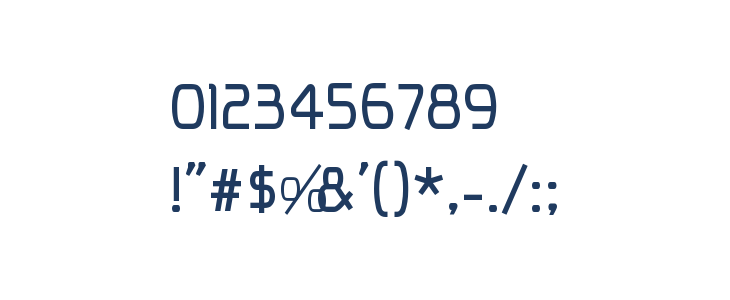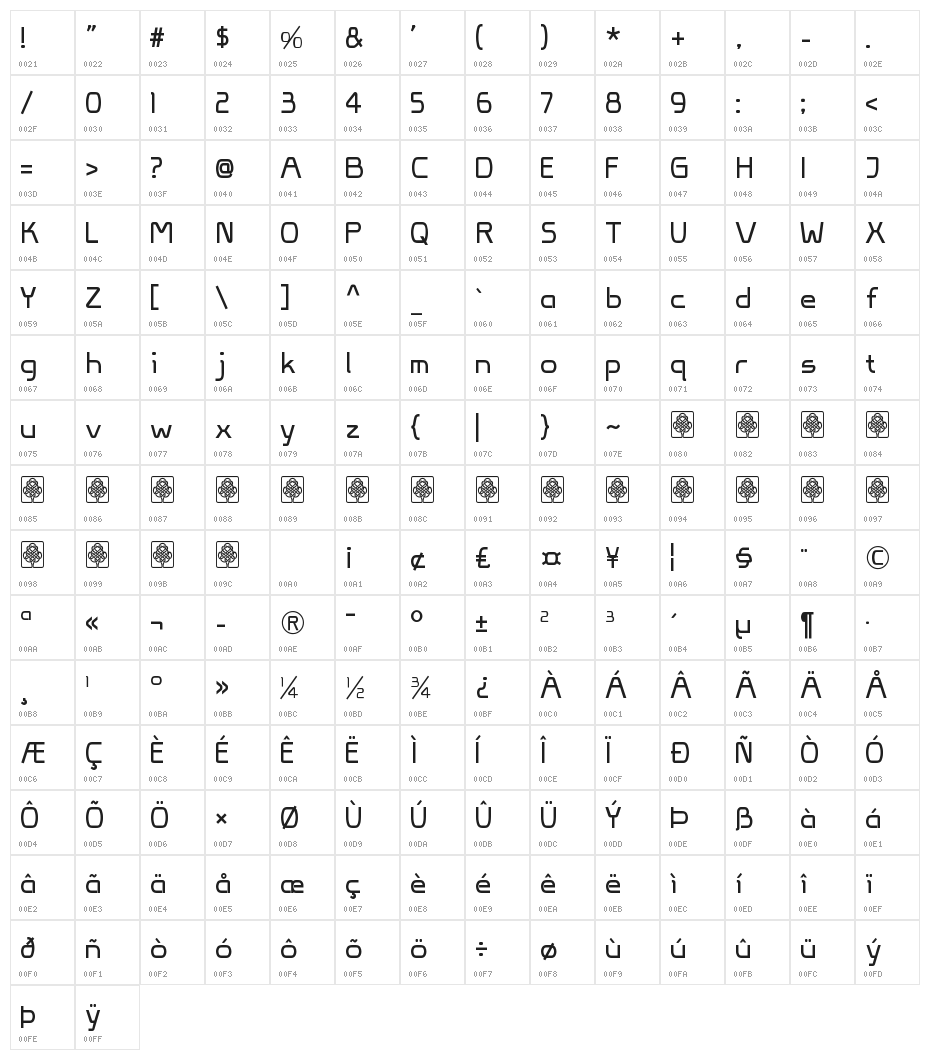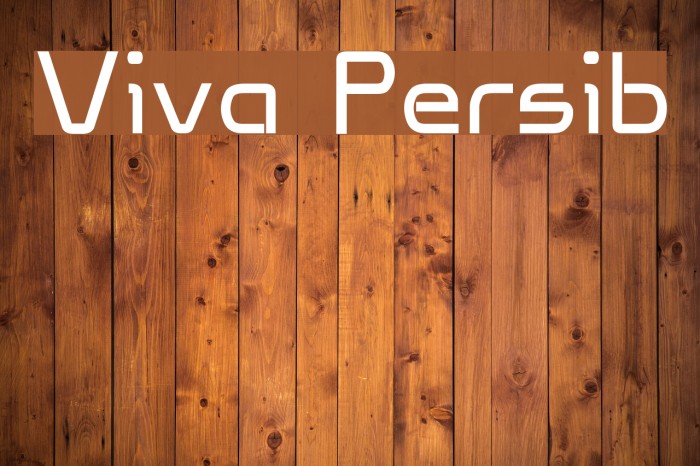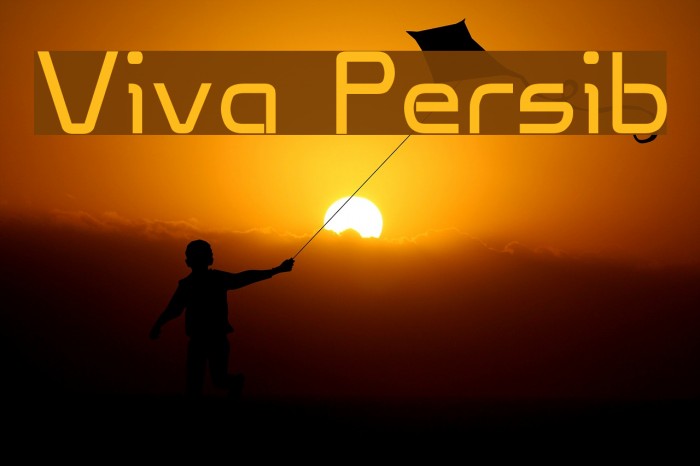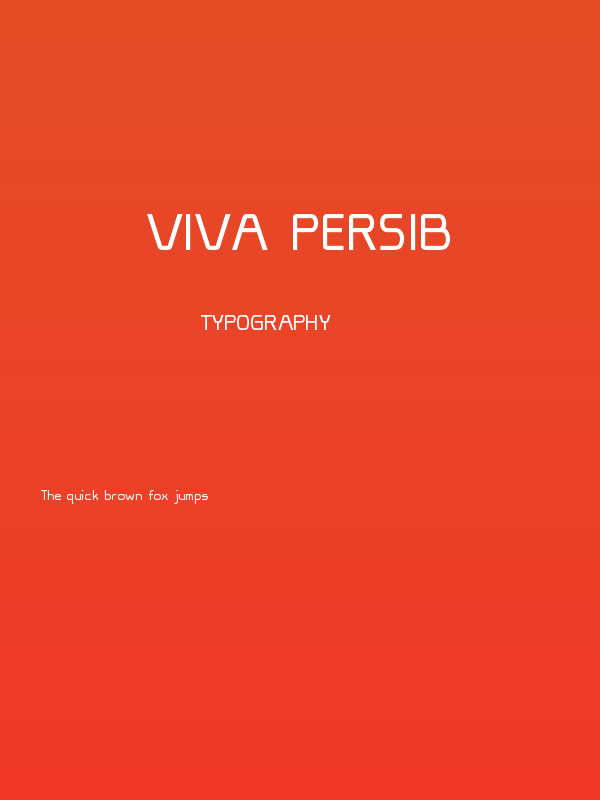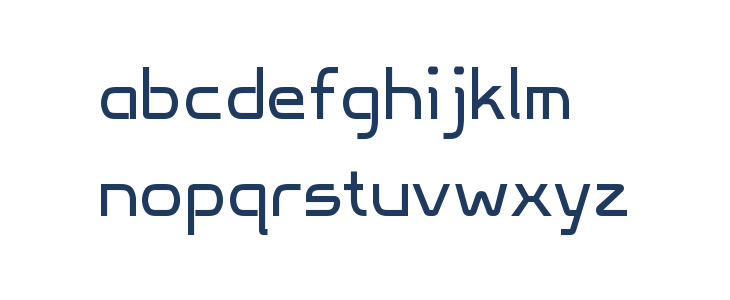
Viva Persib Font
Viva Persib Description
This font features a modern, geometric sans-serif design with clean lines and a minimalist aesthetic. The characters are uniform in width, providing a balanced and structured appearance. The uppercase letters are bold and assertive, while the lowercase letters maintain a consistent style with slightly rounded edges, adding a touch of softness. The numerals are clear and legible, making them suitable for various applications. Special characters are well-defined, ensuring versatility in different contexts. Overall, this font exudes a contemporary and professional vibe, ideal for digital and print media.